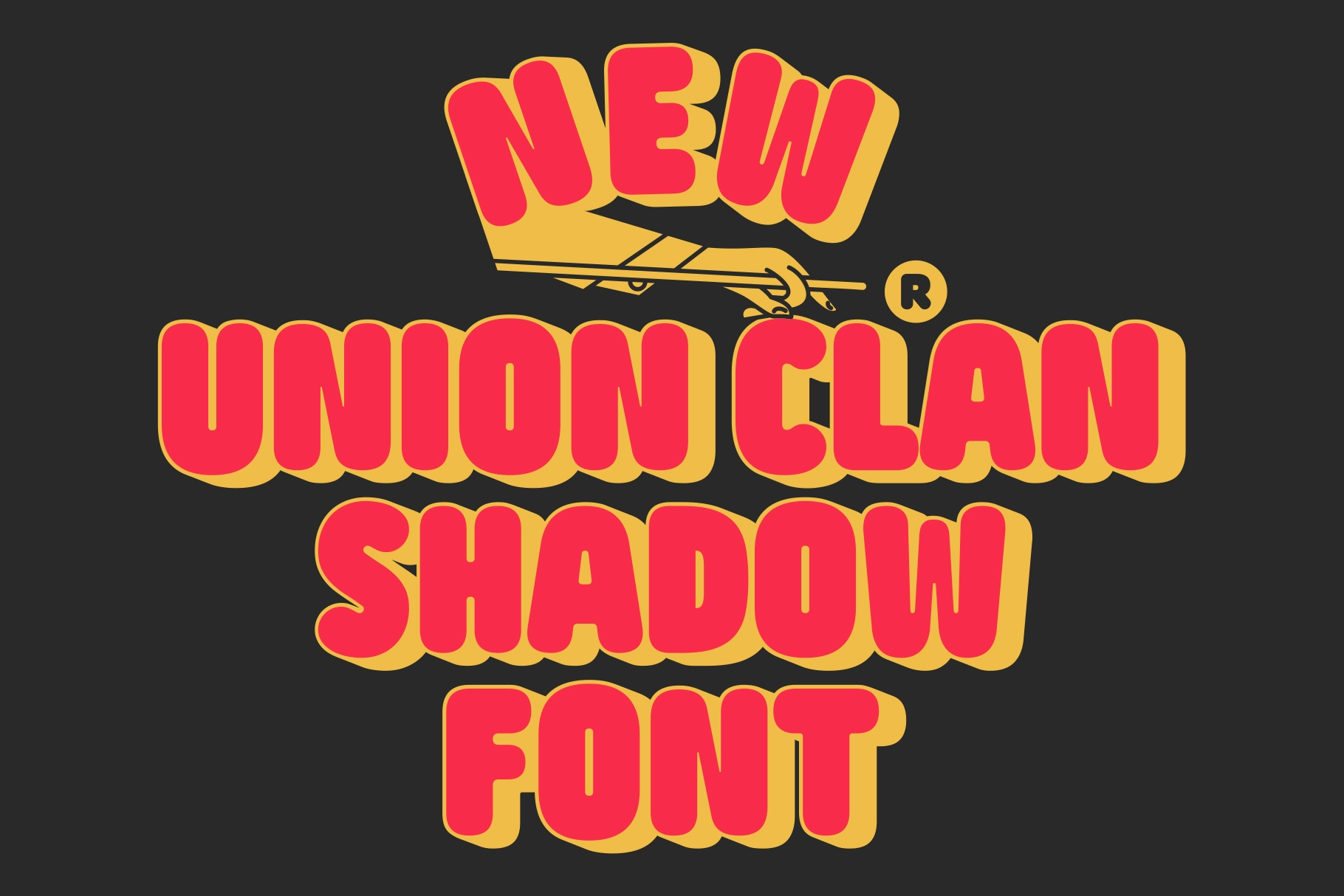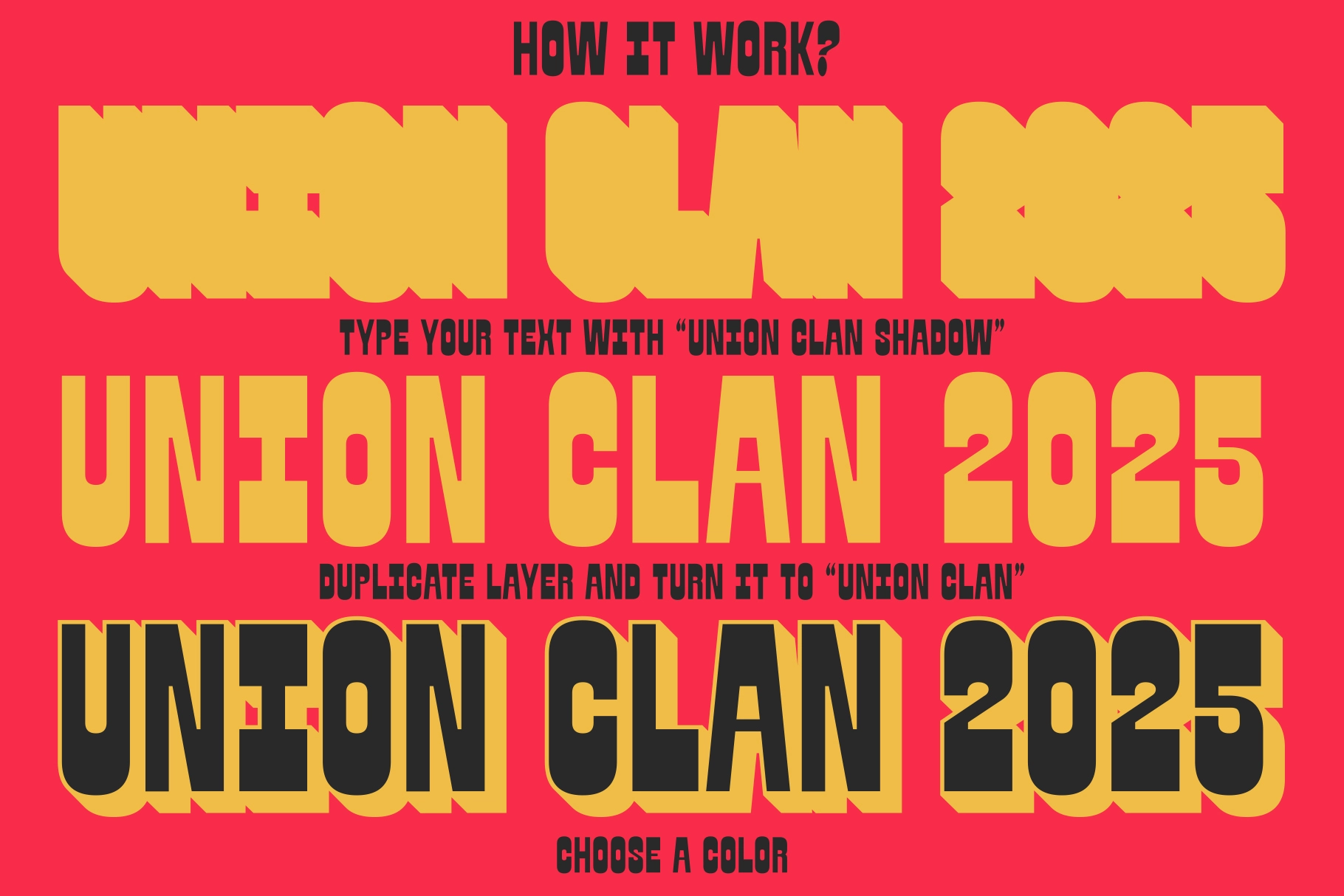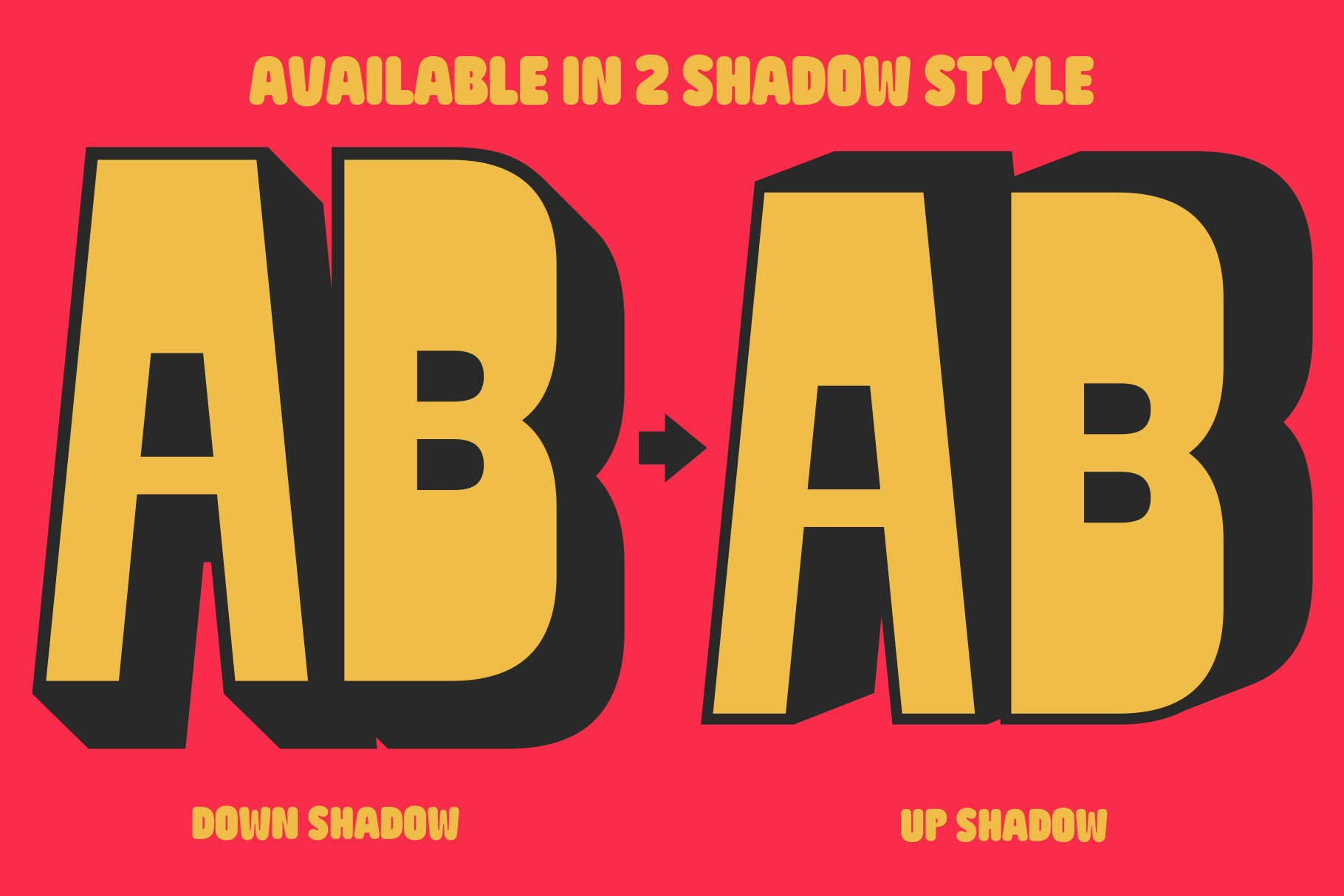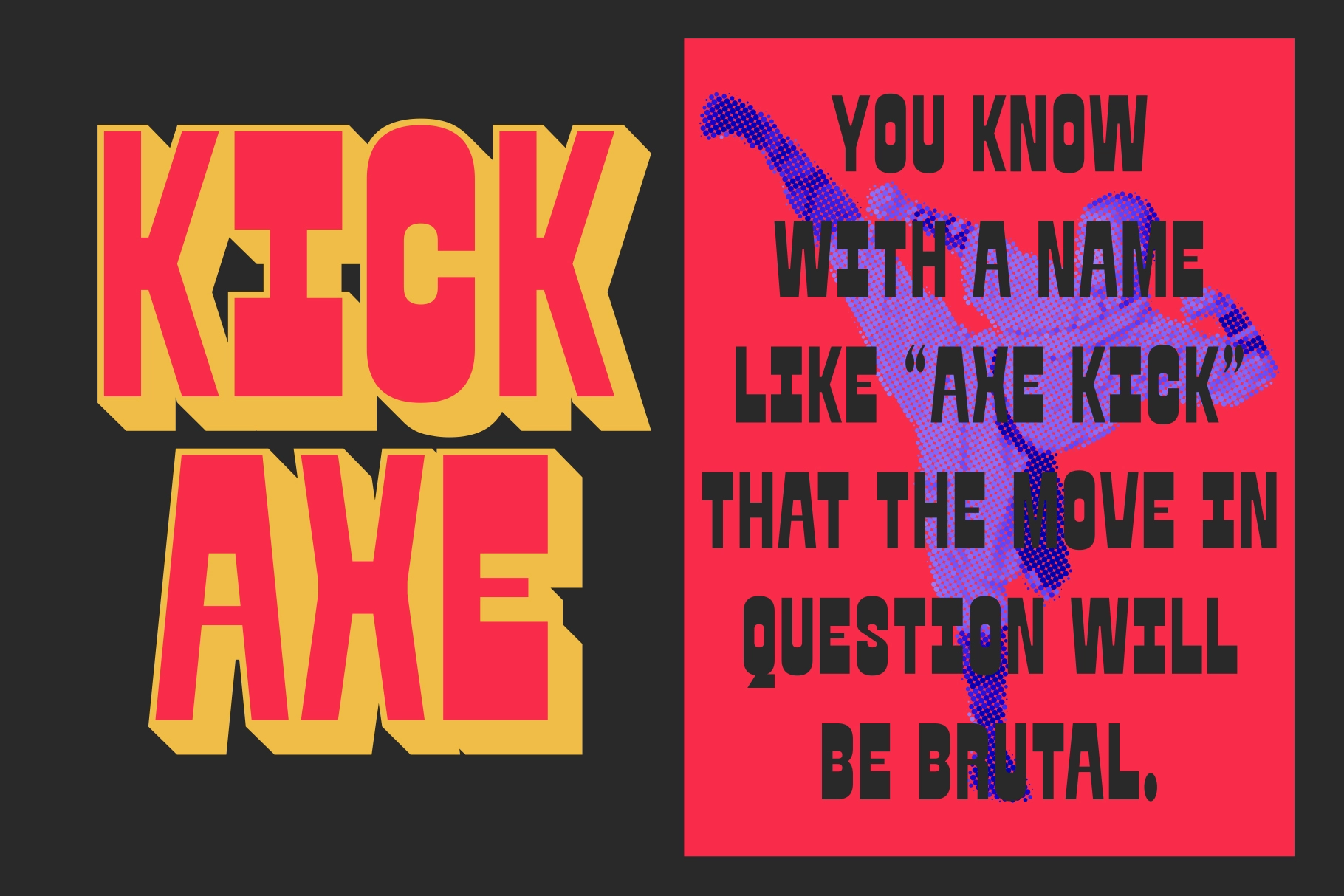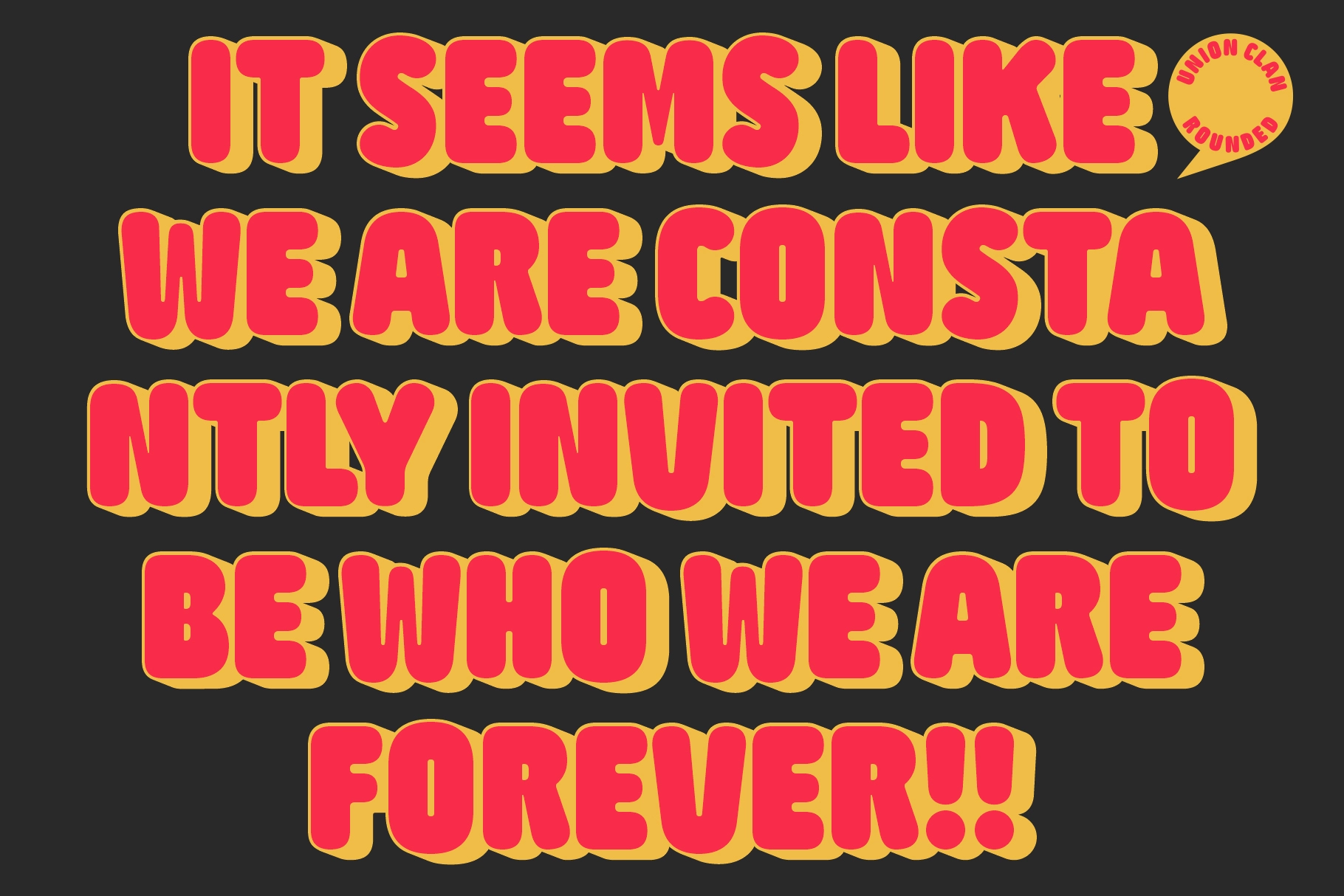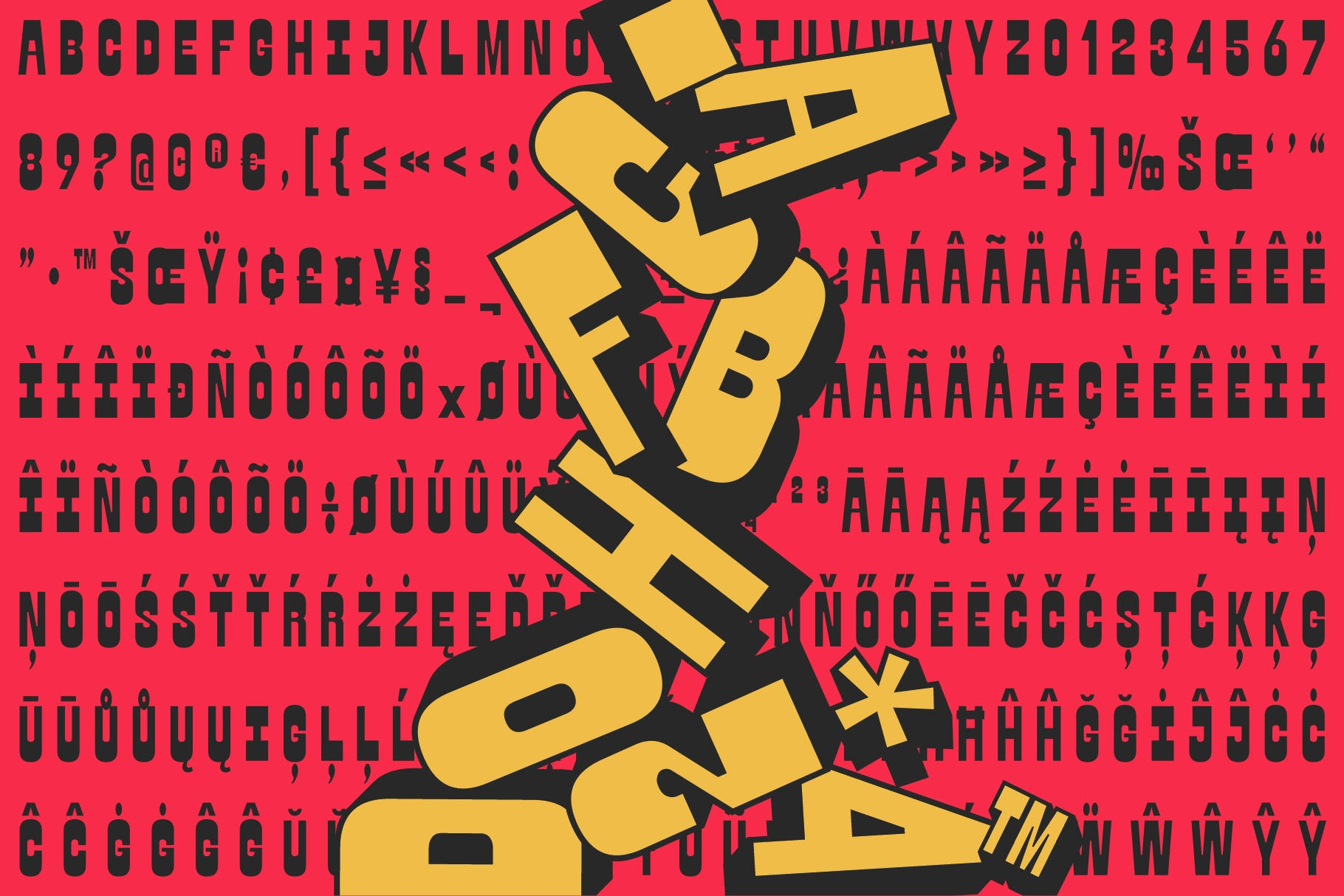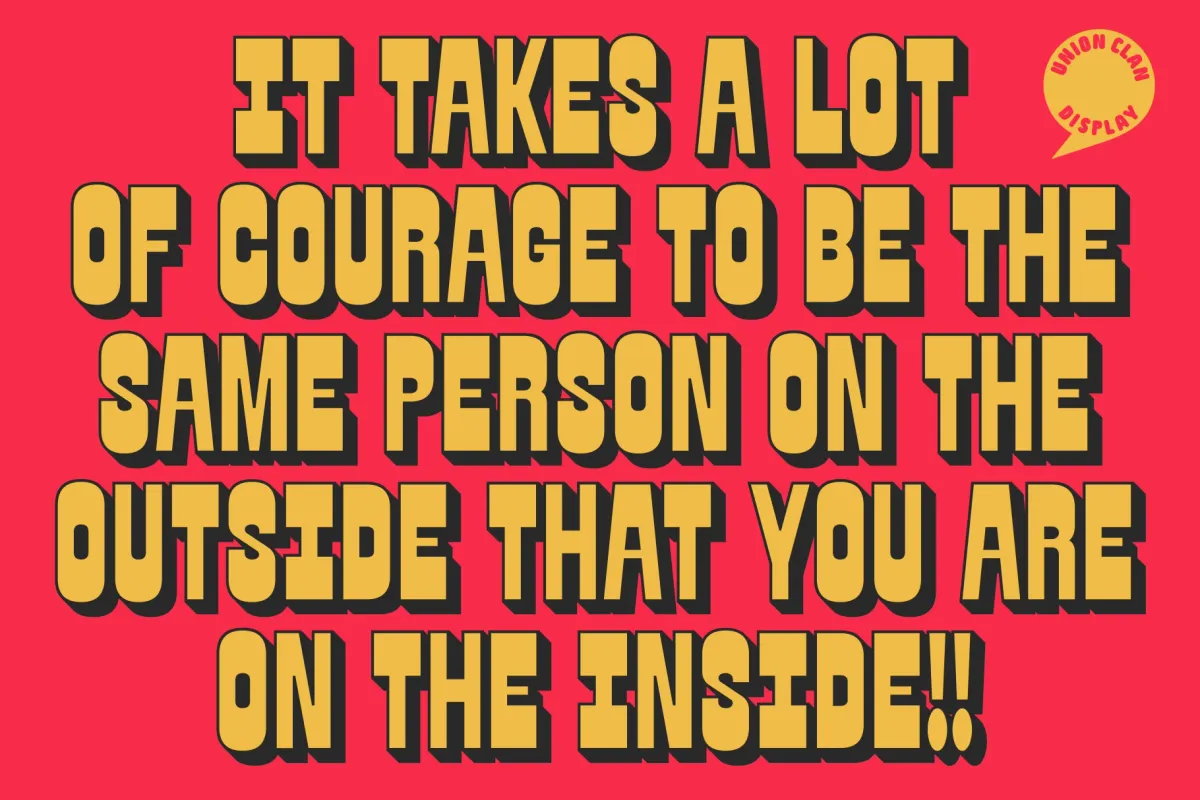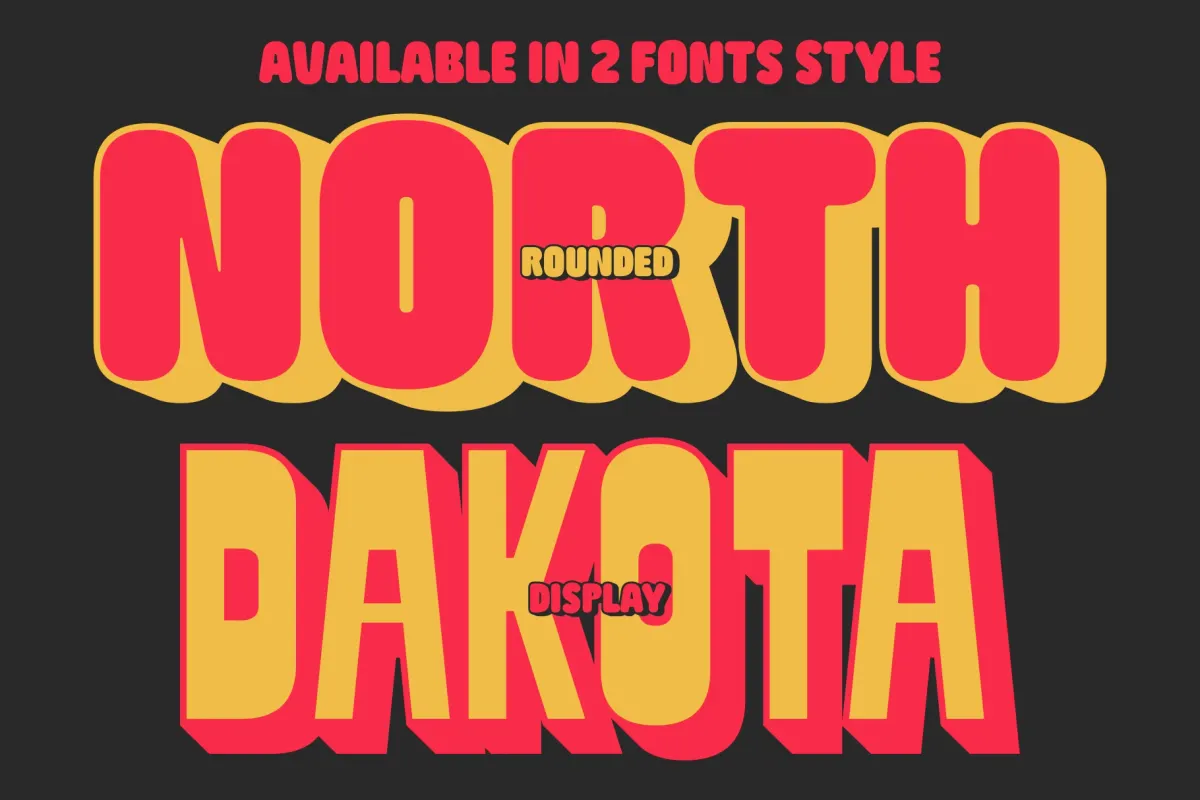
Union Clan - Bold Shadow Font
Union Clan - Bold Shadow Font is a powerful bold shadow font designed to make a strong visual statement. Created by Fateh, Lab, this typeface combines solid, confident letterforms with striking shadow effects that instantly add depth and dimension. Its bold yet slightly rounded structure brings a modern retro feel that stands out across any layout.
Available in two shadow styles (Up Shadow & Down Shadow), Union Clan gives you flexibility to experiment and build eye-catching compositions with ease. Perfect for posters, social media graphics, headlines, magazines, apparel, large-format prints, and branding projects, this font delivers maximum impact wherever it’s placed.
• Bold shadow display font
• 2 Font styles (Rounded & Display)
• 2 Shadow styles (Up & Down)
• Strong, high-impact letterforms
• Uppercase & lowercase
• Numerals & punctuation
• Ideal for posters, headlines & apparel